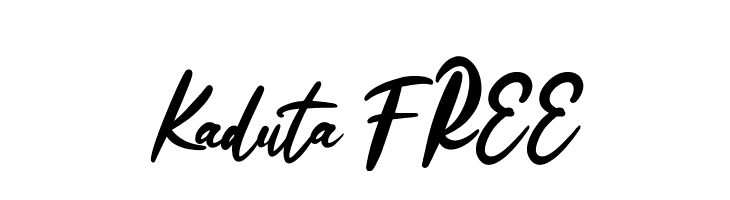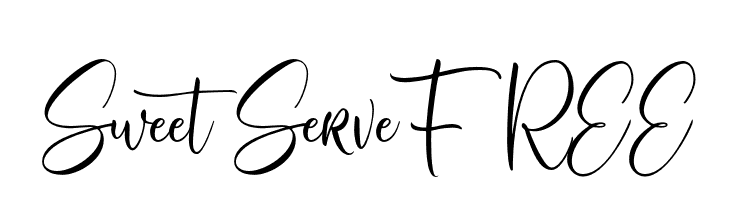
每款 新字体 都有独特个性:从干净现代的无衬线到富有表现力的手写体、醒目的展示体。 我们频繁更新列表,你可以先在线预览再免费下载使用。
A dynamic, calligraphic font with high contrast and fluid strokes.
A sophisticated script font with elegant, flowing letters and high contrast strokes.
An elegant script font with intricate swashes and flourishes.
An elegant, flowing script font with graceful curves and dynamic strokes.
An elegant script font with flowing, cursive letters and ornate uppercase characters.
A decorative, bear-themed pictogram font.
An elegant and flowing script font with ornate curves and flourishes.
An elegant and decorative script font with intricate swirls and flourishes.
An elegant, flowing script font with ornate uppercase and smooth lowercase letters.
An elegant script font with flowing, ornate swashes and flourishes.
A bold, cursive script font with a lively, handwritten style.
A futuristic, geometric font with a double-line structure and modern appeal.
A futuristic, geometric font with a double-line, hollow design.
A modern, slightly italic font with clean lines and balanced proportions.
A bold, slightly italicized font with dynamic strokes and modern appeal.
A bold, slightly italic font with a modern and dynamic style.
A pixelated, blocky font with a retro digital aesthetic.
A bold, three-dimensional font with a shadow effect, offering a modern and striking appearance.
A bold, geometric font with a modern, digital aesthetic.